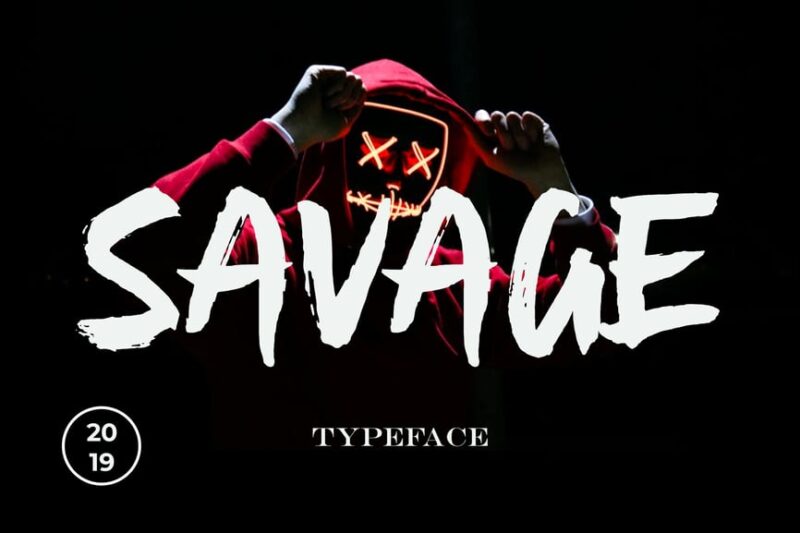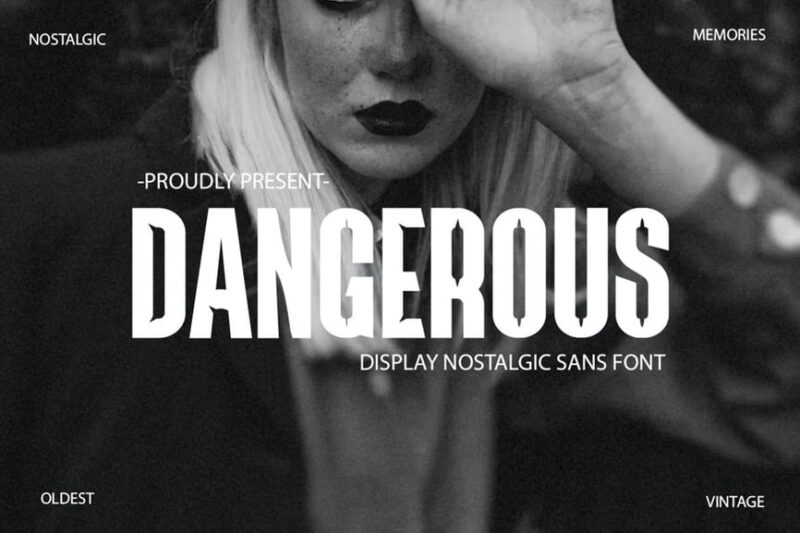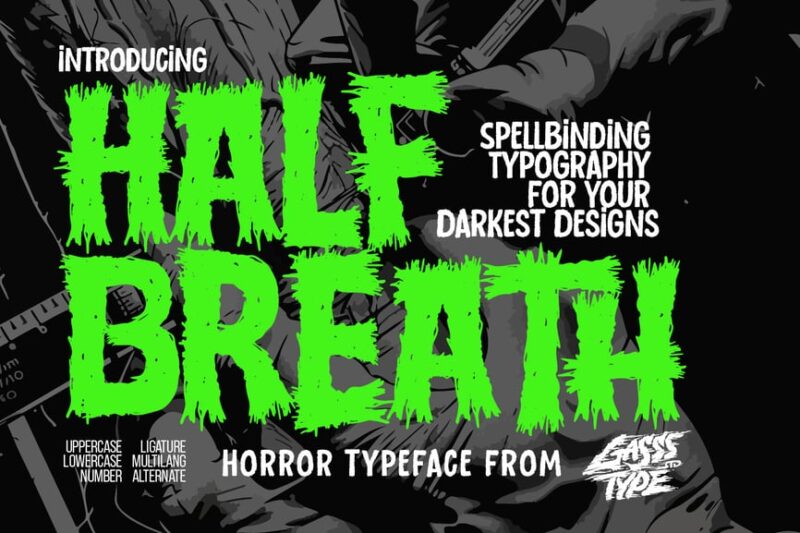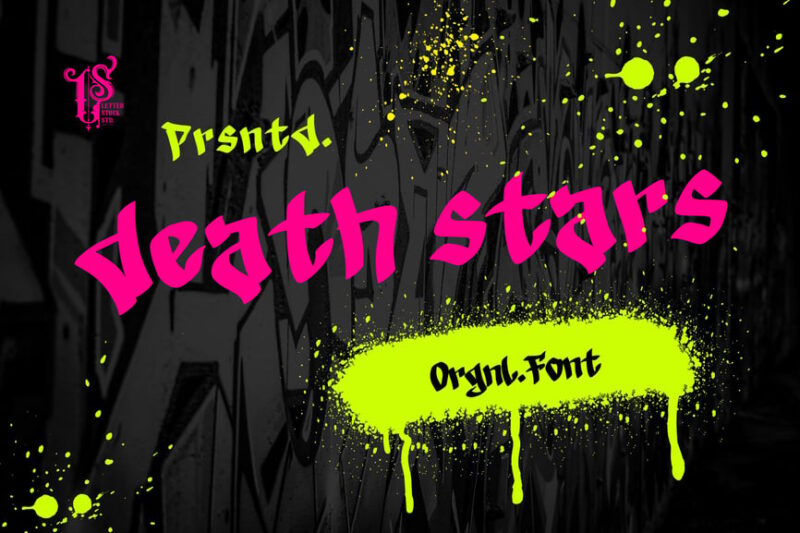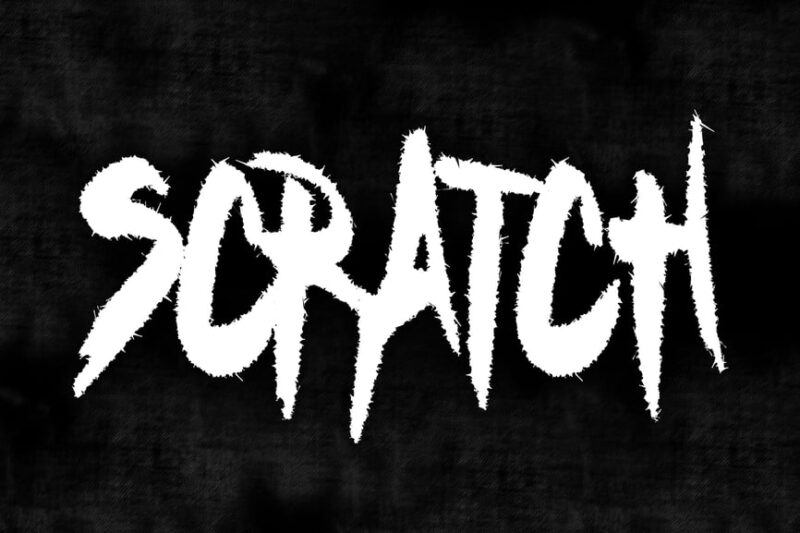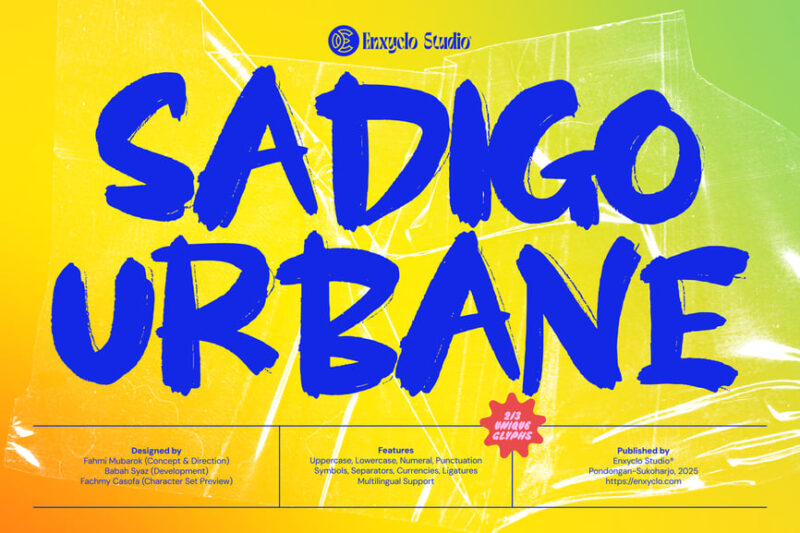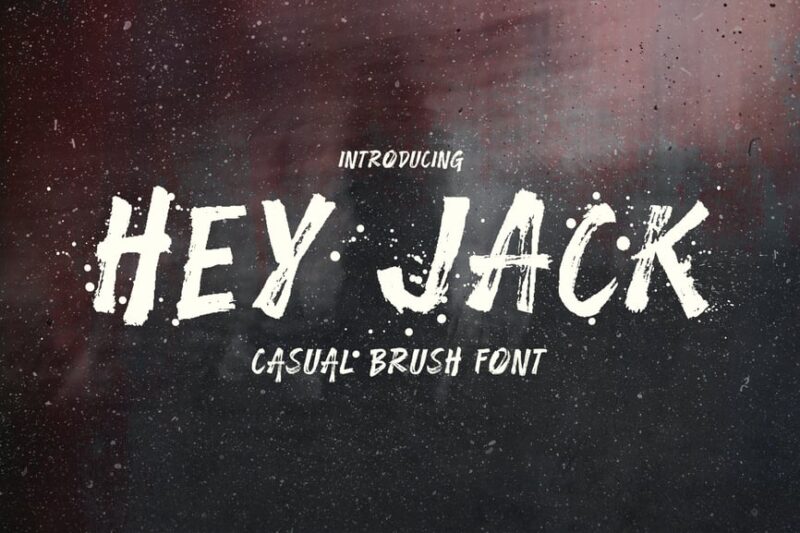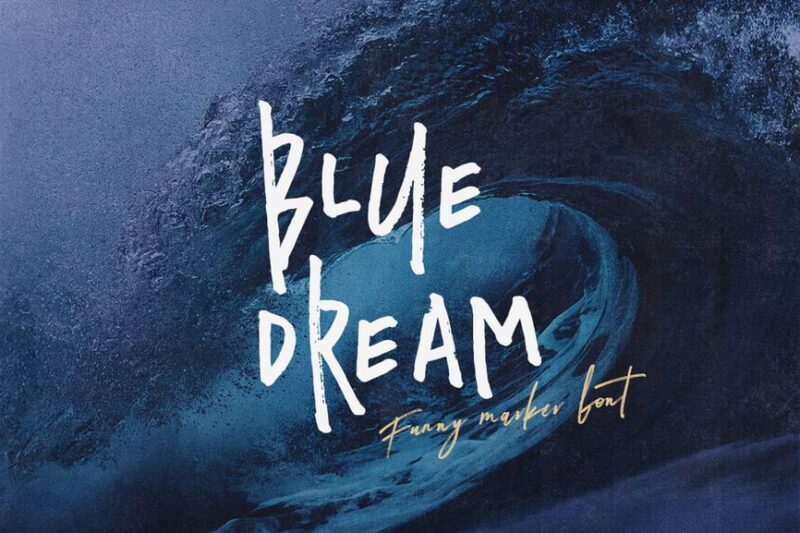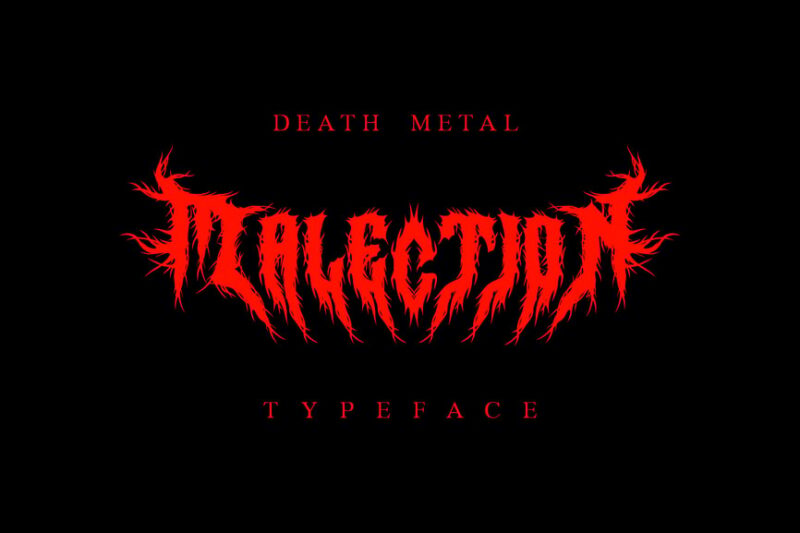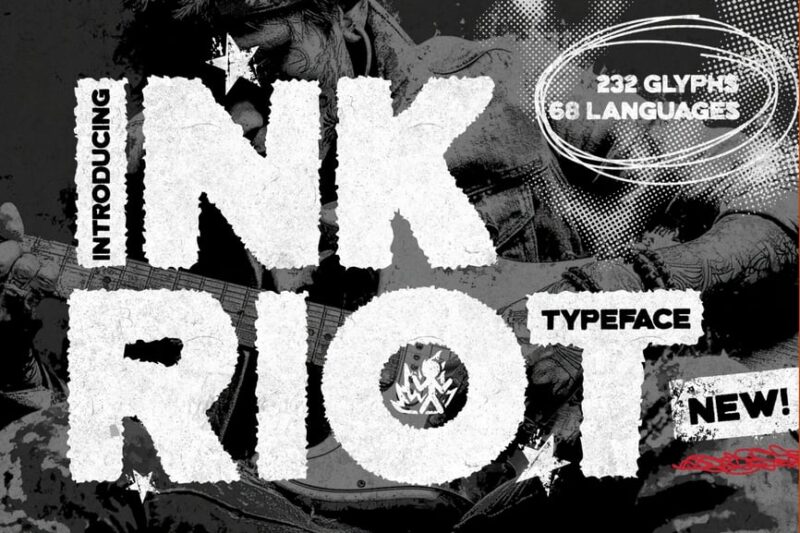
25 Edgy Fonts to Show Off Your Rebellious Side
Edgy fonts are the rebels of the typography world. They’re bold, unconventional, and often incorporate elements like sharp angles, distressed textures, grunge aesthetics, or avant-garde letterforms that challenge traditional design norms. These aren’t your grandmother’s serif fonts – they’re designed to make a statement.
In this deep dive, we’ll explore the cutting-edge world of edgy typography and discover:
• The most striking edgy fonts dominating design in 2026
• What gives certain fonts their rebellious, attention-grabbing edge
• Perfect applications for edgy typography (and when to avoid them)
• Pro tips for incorporating edgy fonts without overwhelming your design
• The psychology behind why edgy fonts create such powerful visual impact
So crank up your favorite playlist, grab your design tools, and let’s dive into the wild world of fonts that dare to be different!
My Favorite Edgy Fonts in October 2026
Not all edgy fonts are created equal – some have that perfect balance of rebellion and readability that makes them truly exceptional. Here’s my curated collection of the most impactful edgy fonts right now:
Savage
Savage is a gritty, intense paint font that embodies the spirit of grunge and heavy metal. Its rough edges and bold strokes make it perfect for creating edgy, rebellious designs that demand attention.
Dangerous
Dangerous is a vintage-inspired sans-serif font with a bold, edgy character. It’s like Impact with sharper features. Its strong lines and sharp angles give it a historic yet contemporary feel, ideal for designs that need to convey strength and attitude.
Half Breath
Half Breath is a decorative font that exudes a dark, decaying aesthetic. Its distressed, rotten appearance makes it perfect for horror-themed designs or projects that require an unsettling, edgy vibe.
Death Stars
Death Stars is a hand-drawn graffiti font with an urban edge. Its raw, organic feel and star-like embellishments make it ideal for street-style designs, album covers, or any project needing a touch of gritty authenticity.
SCRATCH METAL FONT
SCRATCH METAL FONT is a decorative typeface that embodies the essence of death metal and evil aesthetics. Its scratched, distressed appearance and sharp edges make it perfect for creating intense, aggressive designs in the metal music genre.
Sadigo Urbane
Sadigo Urbane is a bold brush script font with an edgy, urban vibe. Its tall, rough strokes give it a dynamic energy, making it ideal for designs that need to convey a strong, street-smart personality.
Hey Jack
Hey Jack is a casual brush font that mimics the look of marker or paint strokes. Its distressed appearance adds a personal touch to designs, perfect for projects that need a friendly, approachable feel.
Blue Dream
Blue Dream is a crazy handwritten font that combines sans-serif, script, and decorative elements. Its rough, grunge-inspired design makes it versatile for various projects requiring a bold, unconventional typographic approach.
Malection
Malection is a decorative font that embodies chaos and darkness, perfect for black metal and death metal aesthetics. Its intricate, menacing design makes it ideal for creating intense, foreboding atmospheres in graphic projects. Try our Metallica font generator too.
Inkriot
Inkriot is a punk-inspired typeface with an experimental edge. Its unconventional letter forms and aggressive style make it perfect for designs that need to convey rebellion, anarchy, and a DIY aesthetic.
Serpent Wrath
Serpent Wrath is a lightning-bolt font designed for rock music and death metal genres. Its sinister, serpentine forms and aggressive style make it ideal for creating powerful, intimidating designs for album covers or band merchandise.
Street Streak
Street Streak is a raw and edgy urban graffiti font that captures the essence of street art. Its bold, dynamic strokes make it perfect for streetwear designs, urban-themed projects, or any work that needs an authentic graffiti touch.
Bitter & Sour
Bitter & Sour is a script font with a punk-inspired, doodled aesthetic. Its rough, hand-drawn appearance adds a rebellious, DIY feel to designs, making it great for projects that need a raw, unpolished look.
Darksht
Darksht is an urban graffiti font that exudes punk attitude. Its bold, spray-paint-like strokes and dripping font design make it perfect for creating authentic street art-inspired graphics or urban-themed designs.
Groovy Dopamine